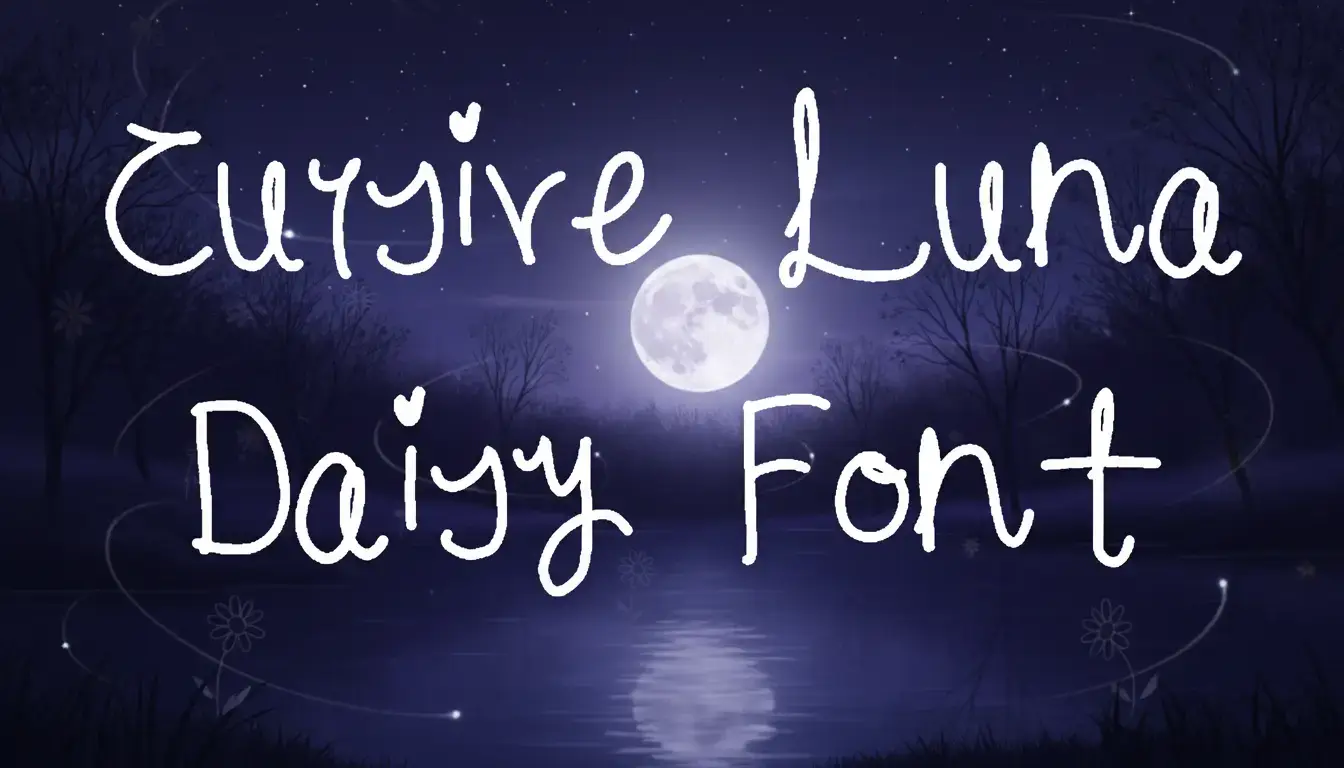
Cursive Luna Daisy Font
Cursive Luna Daisy is a handwritten font. The letters have the small wobbles and personality of real handwriting, so your text feels warm instead of printed. You can download it for free and test it with your own words in the preview above.
What You Can Type With Cursive Luna Daisy
You get every letter from A to Z in both cases and all the numbers from 0 to 9, which means Cursive Luna Daisy can handle full sentences, dates and prices. Everyday marks like &, !, ? and @ are there too. There are no accented letters like é or ñ, so it's best kept to English text.
Where Cursive Luna Daisy Works Best
Designers usually reach for fonts like Cursive Luna Daisy when they're making greeting cards, journal pages and friendly social posts. Set it a bit larger than you would a normal text font. Handwriting styles lose their charm once they get too small to read comfortably.
Does Cursive Luna Daisy support accented letters?
No. Cursive Luna Daisy has no accented letters such as é, ñ or ü, so it's best for English text.